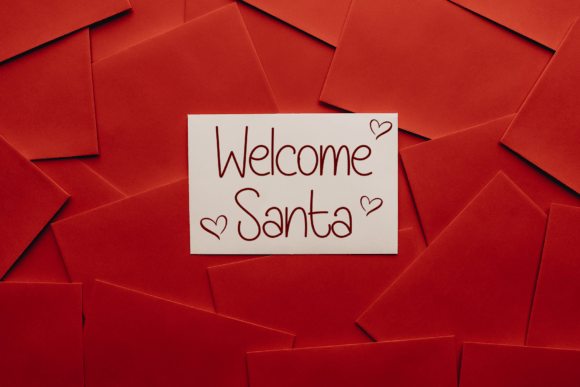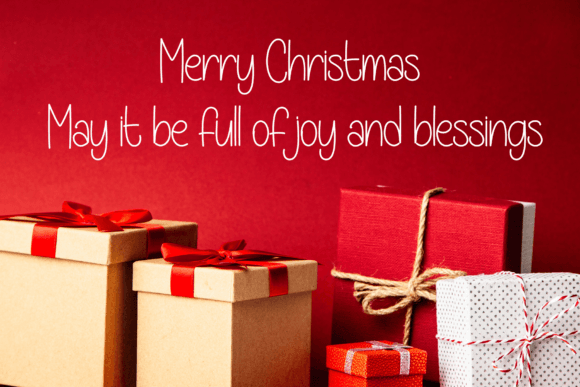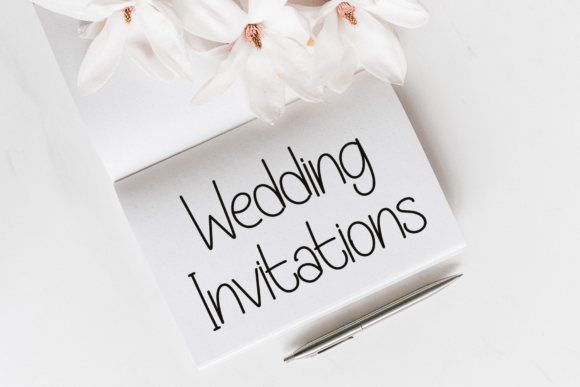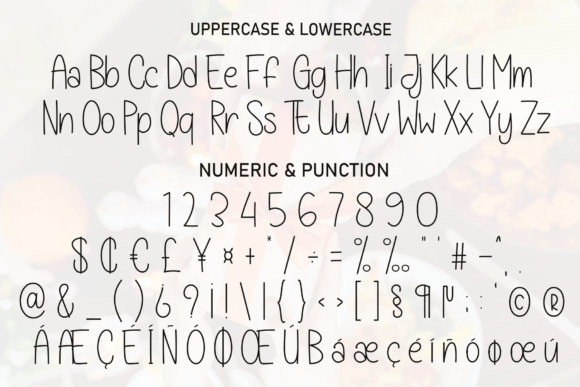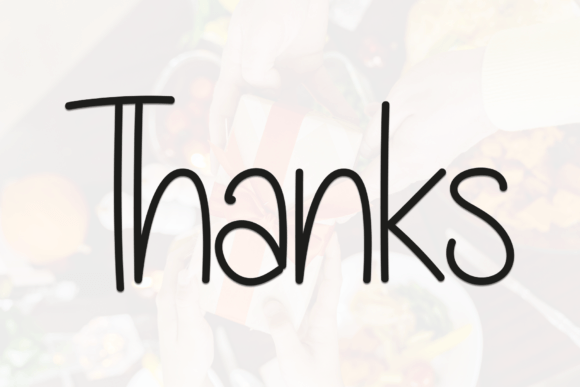
Introducing the Happy Christmas Font: A Timeless and Elegant Addition to Your Design Projects
As the holiday season approaches, designers and crafters are on the lookout for the perfect typography to add a touch of festive flair to their projects. If you’re searching for a font that exudes elegance and sophistication, look no further than the Happy Christmas Font. This beautiful handwritten font is sure to captivate your audience with its incredibly distinct and timeless style, making it perfect for a wide range of design applications.
A Neat and Beautiful Handwritten Font
The Happy Christmas Font is a neat and beautiful handwritten font that boasts an elegant touch, setting it apart from more traditional and generic fonts. Its unique and refined style is sure to add a level of sophistication to any design project, from holiday cards and invitations to website headers and marketing materials. Whether you’re a professional designer or a crafter looking to add a personal touch to your projects, this font is sure to impress.
Distinct and Timeless Style
One of the standout features of the Happy Christmas Font is its incredibly distinct and timeless style. Unlike trendy fonts that may quickly go out of style, this font’s classic and elegant design ensures that it will remain relevant for years to come. Its unique character and charm make it perfect for designers and crafters who want to create spectacular designs that stand out from the crowd.
The Happy Christmas Font is versatile and can be used for a wide range of design projects, including:
- Website headers and marketing materials
- Digital and print crafts
- Packaging and branding materials
Whether you’re creating a festive holiday design or a more general design project, this font is sure to add a touch of elegance and sophistication.
Why Choose the Happy Christmas Font?
So, why choose the Happy Christmas Font for your design projects? Here are just a few reasons:
- Elegant and sophisticated design: The Happy Christmas Font boasts a refined and elegant design that’s perfect for creating high-end designs.
- Unique and distinct style: This font’s unique character and charm make it stand out from more traditional and generic fonts.
- Timeless appeal: The font’s classic design ensures that it will remain relevant for years to come.
- Versatile: The Happy Christmas Font can be used for a wide range of design projects.
Tips for Using the Happy Christmas Font
To get the most out of the Happy Christmas Font, here are a few tips:
- Use it sparingly: While the Happy Christmas Font is beautiful, it’s best used sparingly to add a touch of elegance to your designs.
- Pair it with complementary fonts: Pair the Happy Christmas Font with complementary fonts to create a visually appealing design.
- Experiment with different colors and textures: Don’t be afraid to experiment with different colors and textures to add depth and interest to your designs.
In conclusion, the Happy Christmas Font is a beautiful and elegant handwritten font that’s perfect for designers and crafters looking to add a touch of festive flair to their projects. Its unique and distinct style, combined with its timeless appeal, make it a versatile font that can be used for a wide range of design applications. Whether you’re creating holiday cards, website headers, or marketing materials, this font is sure to impress.